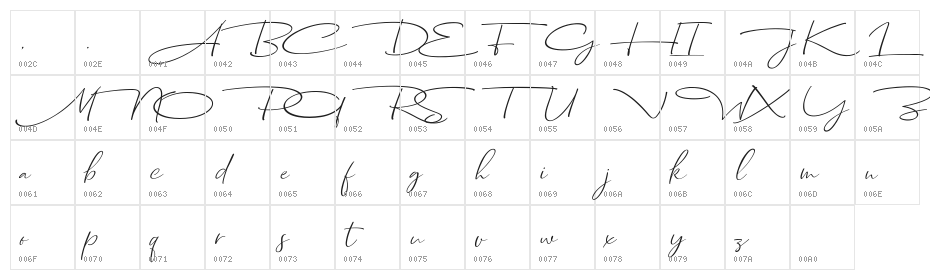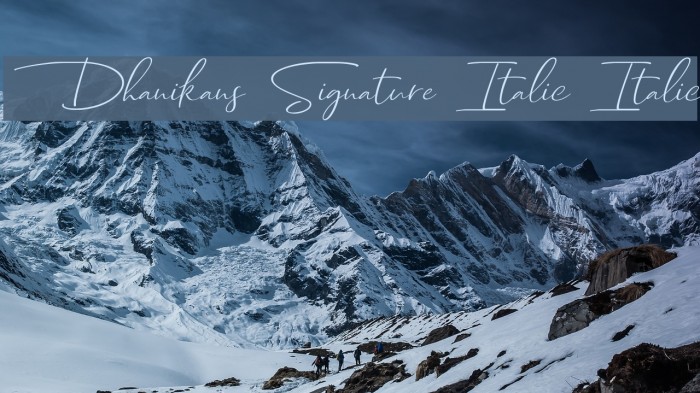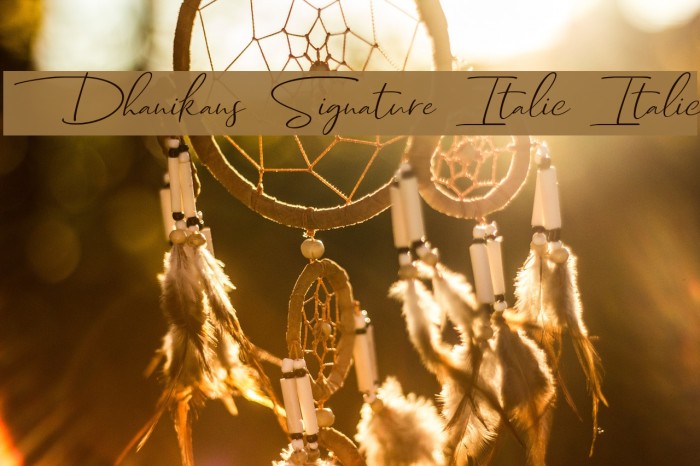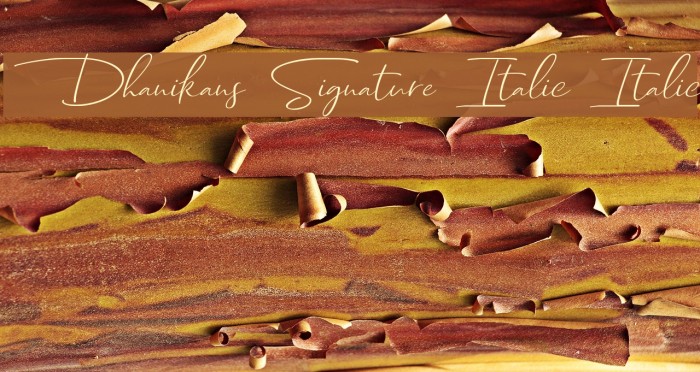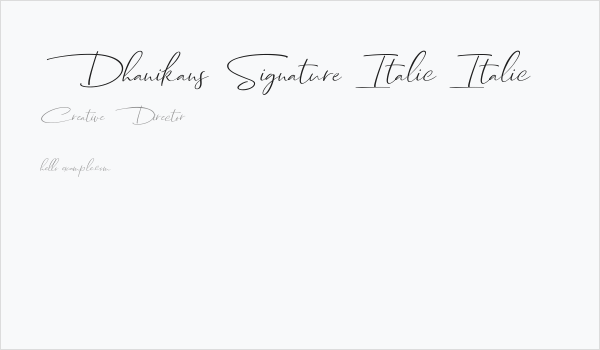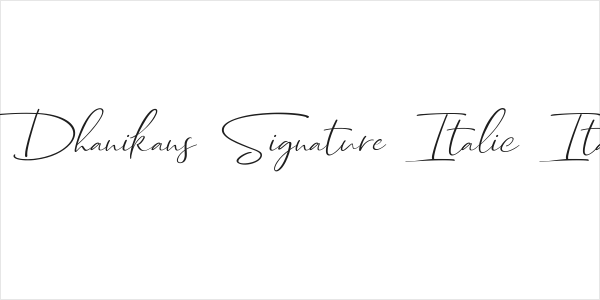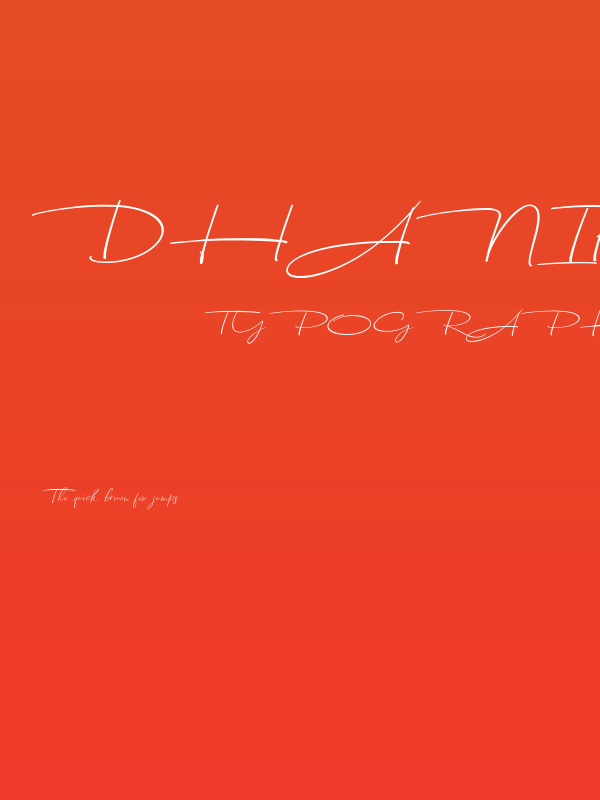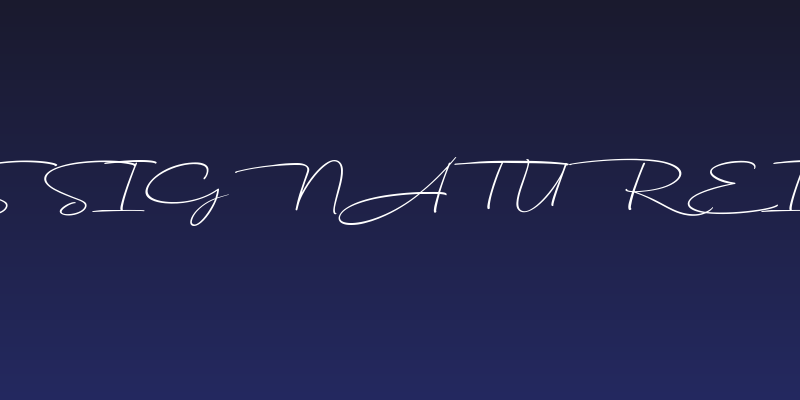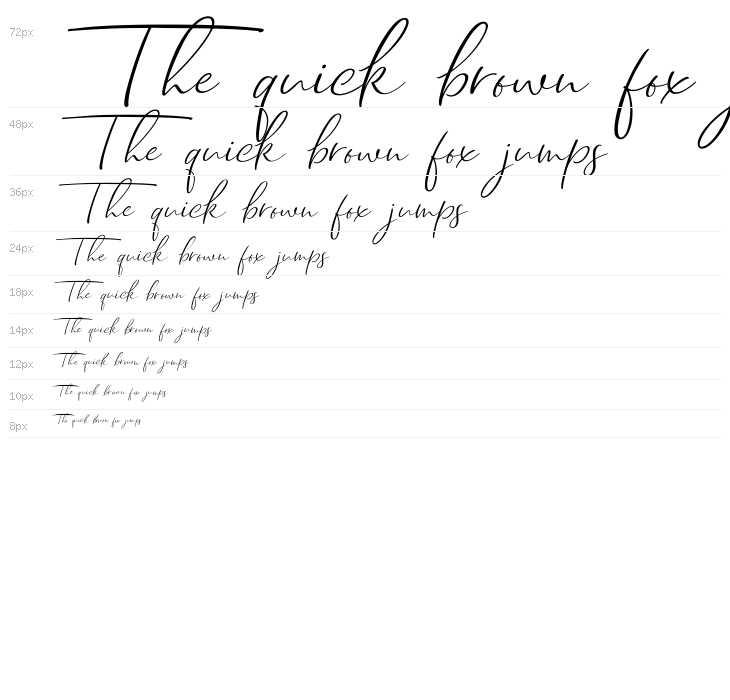
Dhanikans Signature Italic Italic Font
Dhanikans Signature Italic Italic Description
This font exudes elegance and sophistication with its flowing, cursive style. The characters are crafted with a smooth, continuous stroke that mimics the fluidity of handwriting. The uppercase letters are elongated and graceful, while the lowercase letters maintain a consistent rhythm and balance. The font's italic nature adds a dynamic and expressive touch, making it perfect for conveying a sense of personal flair. The overall design is both modern and timeless, suitable for a variety of creative applications.
| Proposed Projects | Ideal for wedding invitations, personal branding, elegant logos, and high-end product packaging. |